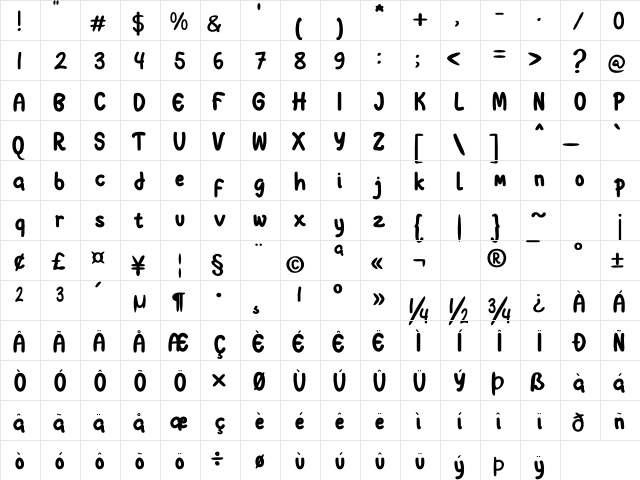
Q 212 Regular
Design Context for Q 212 Typeface
Q 212 is a composed and adaptable typeface that performs quietly and consistently across a wide range of design contexts.